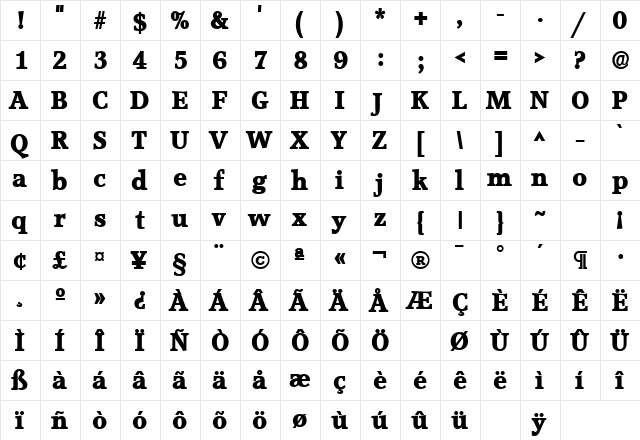
AccoladeLH Bold Font Preview
AccoladeLH Bold
AccoladeLH Bold Font Details
Design Context for AccoladeLH Typeface
AccoladeLH offers clean, dependable letterforms without strong stylistic allegiance, making it a practical choice for designers who need flexibility. Its bold stroke weight gives it real presence on the page.